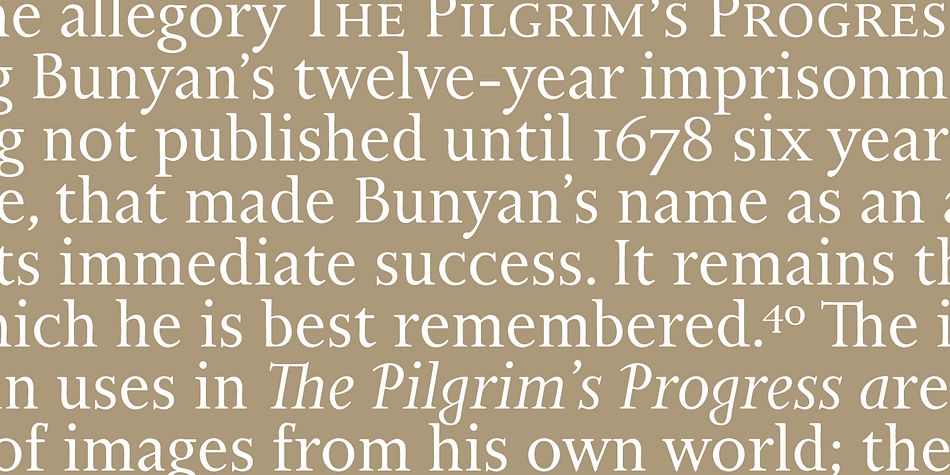
Bunyan Pro
Designed by Eric Gill, Patrick Griffin and Bill Troop, Bunyan Pro is a serif font family. This typeface has six styles and was published by Canada Type.
Bunyan Pro is the synthesis of Bunyan, the last face Eric Gill designed for hand setting in 1934 and Pilgrim, the machine face based on it, issued by British Linotype in the early 1950s — the most popular Gill text face in Britain from its release until well into the 1980s.
Gill’s last face doesn
When compared to Gill
It
Bunyan had no bells and whistles, doesn
By interbellum standards, this was utter austerity, a veritable denial of deco excess.
Surprisingly, even without all the cloying trivialities, Bunyan still stood indisputably as an aesthetically pleasing, space saving design that could have been made only by Eric Gill.
Bunyan Pro comes in three weights and their italics.
The main font is intended for use between 8 and 14 points.
The medium and the bold are great for emphasis but also have good merit in larger sizes, so can make effective display types as well.
Bunyan Pro is the synthesis of Bunyan, the last face Eric Gill designed for hand setting in 1934 and Pilgrim, the machine face based on it, issued by British Linotype in the early 1950s — the most popular Gill text face in Britain from its release until well into the 1980s.
Gill’s last face doesn’t date itself anywhere near as obviously as Gill’s other serif faces, which were all really products of their time, heavily influenced by the richly ornamental and constantly changing aesthetic trends of the interwar period. When compared to Gill’s previous work, Bunyan seems like a revolution in the way he thought and drew. It’s as if he was shrugging off all heavy burden of what was popular, and going back to the basics of older standards. Bunyan had no bells and whistles, doesn’t risk functionality with contrasts that are too high or too low, and didn’t venture far outside the comfortable oldstyle rhythm Gill grew up with. By interbellum standards, this was utter austerity, a veritable denial of deco excess. Surprisingly, even without all the cloying trivialities, Bunyan still stood indisputably as an aesthetically pleasing, space saving design that could have been made only by Eric Gill.
Bunyan Pro comes in three weights and their italics. The main font is intended for use between 8 and 14 points. The medium and the bold are great for emphasis but also have good merit in larger sizes, so can make effective display types as well.
All six fonts include small caps, ligatures, alternates, six sets of figures, and three original Gill manicules. We tried to keep the best features of the handset (Bunyan) and machine (Pilgrim) versions while building a text face that can function in today’s immersive reading media. Deciding on which useful letterpress features to preserve for aesthetic importance was hell on our eyeballs — which lead to complex and painstaking ways of ironing out irregularities and inconsistencies related to metal technologies, in order to provide something with authenticity. The result is a unique typeface based on a Gill design that, to a much greater extent than any of his other faces, works well as a text face that can be used for entire books and magazines.